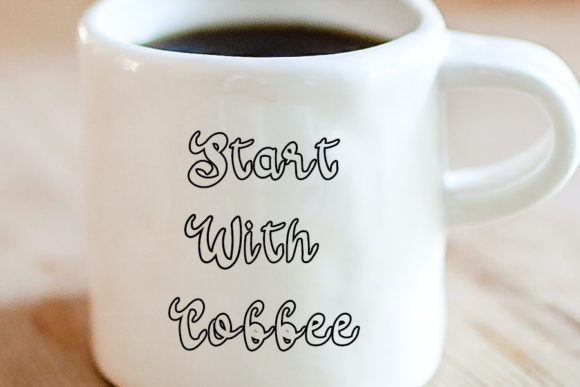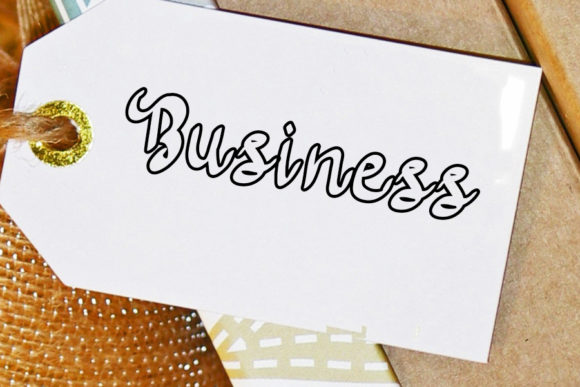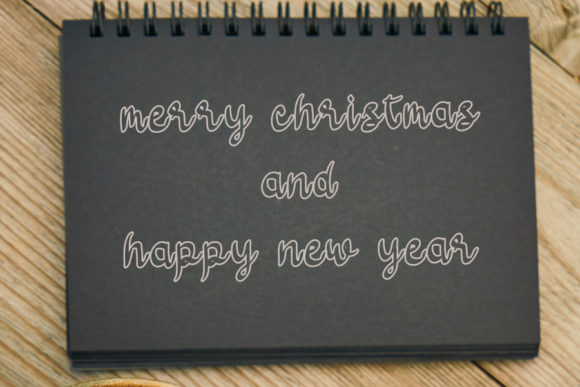
Happy New Year Font: Elevate Your Designs with Elegance and Charm
As the clock strikes midnight on New Year’s Eve, the world welcomes a fresh start with open arms. The excitement and anticipation of a new beginning are palpable, and what better way to express this joy than through creative designs? If you’re a designer or crafter looking for the perfect font to capture the essence of the Happy New Year spirit, look no further than the Happy New Year Font. This trendy display font is the epitome of charm and elegance, making it the ideal choice for creating stunning and neat designs.
The Allure of Happy New Year Font
Happy New Year Font feels equally charming and elegant, making it a versatile choice for various design projects. Whether you’re working on a New Year’s Eve invitation, a social media post, or a festive flyer, this font is sure to add a touch of sophistication and whimsy. Its unique and stylish lettering is designed to evoke the excitement and optimism that comes with the start of a new year.
Key Features of Happy New Year Font
- Trendy Design: Happy New Year Font boasts a modern and trendy design that is sure to make your designs stand out from the crowd.
- Elegant and Charming: The font’s elegant and charming lettering makes it perfect for creating sophisticated and eye-catching designs.
- Display Font: As a display font, Happy New Year Font is designed to make a statement, making it ideal for headlines, titles, and other prominent design elements.
- Neat and Clean: The font’s clean and neat design ensures that your text remains legible and easy to read, even at smaller sizes.
Design Ideas with Happy New Year Font
The versatility of Happy New Year Font makes it suitable for a wide range of design projects. Here are a few ideas to get you started:
- New Year’s Eve Invitations: Create stunning invitations that set the tone for an unforgettable night.
- Social Media Posts: Add a touch of elegance and charm to your social media posts, making them perfect for sharing with friends and family.
- Festive Flyers: Design eye-catching flyers that promote your New Year’s Eve events or celebrations.
- Party Decorations: Use Happy New Year Font to create beautiful party decorations, such as banners, garlands, and more.
Tips for Using Happy New Year Font
To make the most of Happy New Year Font, here are a few tips to keep in mind:
- Pair with Complementary Fonts: Pair Happy New Year Font with complementary fonts to create a harmonious and visually appealing design.
- Experiment with Colors: Don’t be afraid to experiment with different colors and textures to add depth and interest to your design.
- Keep it Simple: Remember, sometimes less is more. Keep your design simple and elegant to let the font shine.